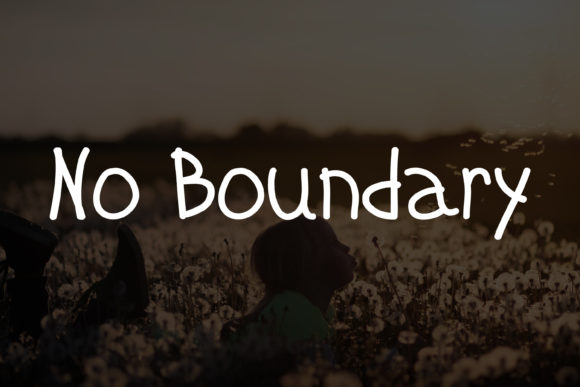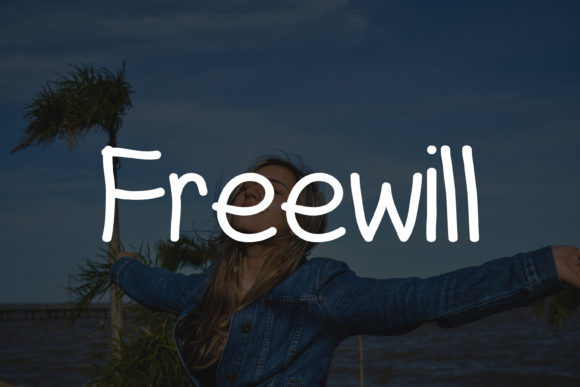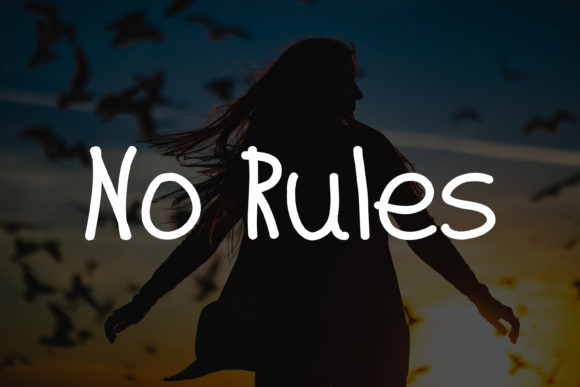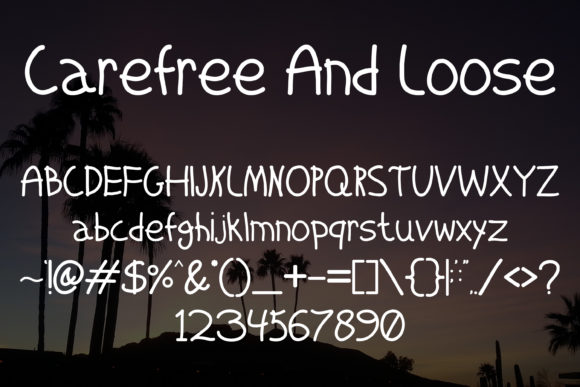
Introduction to Carefree and Loose Font
Carefree and Loose is an incredibly natural handwritten font that’s fun and easy to read.
It is perfectly suitable for watermarks, name tags, labels, titles, marketing materials, or any other projects that require a handwritten touch in an elegant, sleek style .
Key Features of Carefree and Loose Font
Why Choose Carefree and Loose Font?
Carefree and Loose Font offers exceptional quality and versatility, making it a valuable addition to your design toolkit. Whether you’re creating for personal projects or commercial use, Carefree and Loose Font delivers professional results.